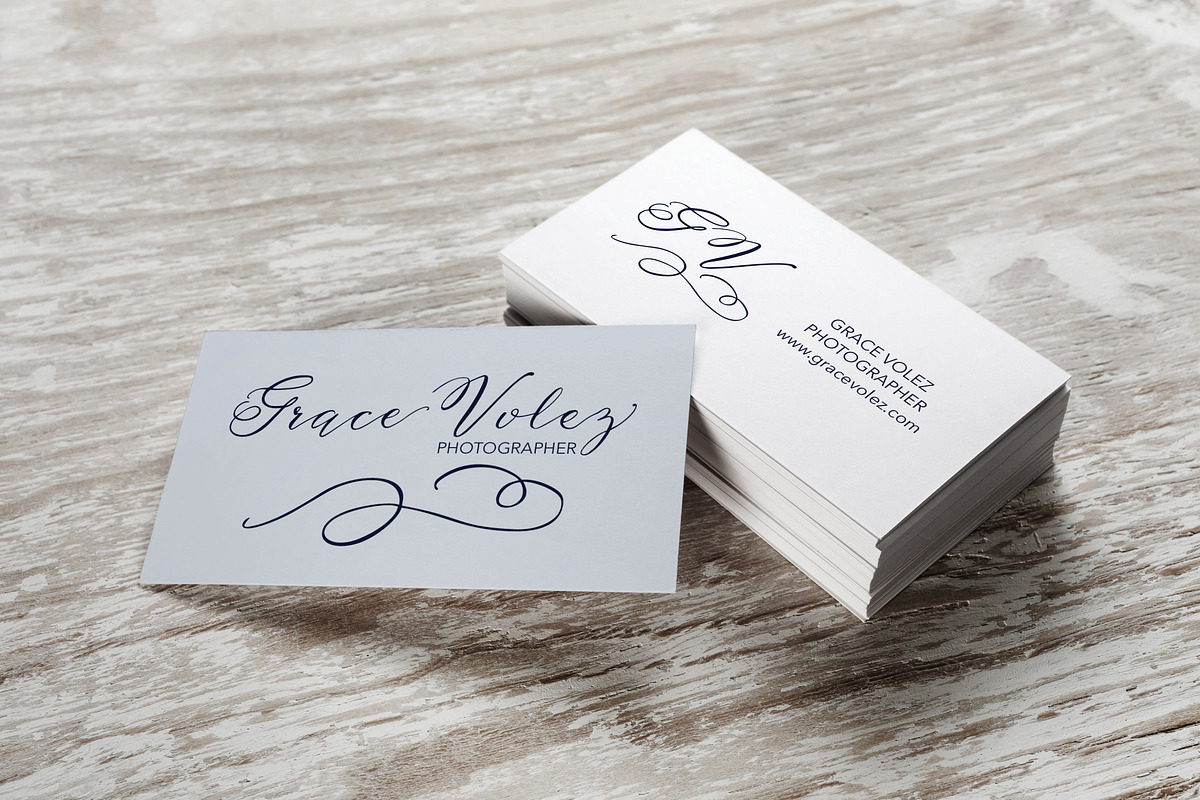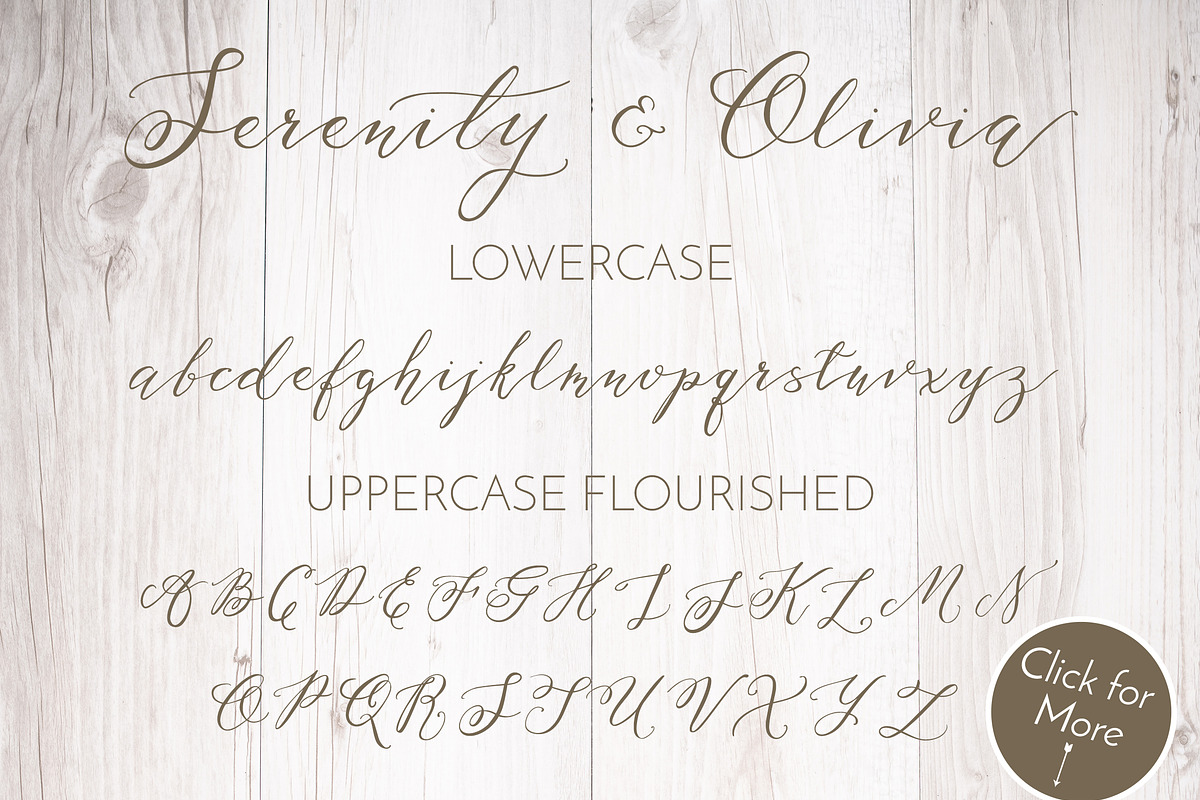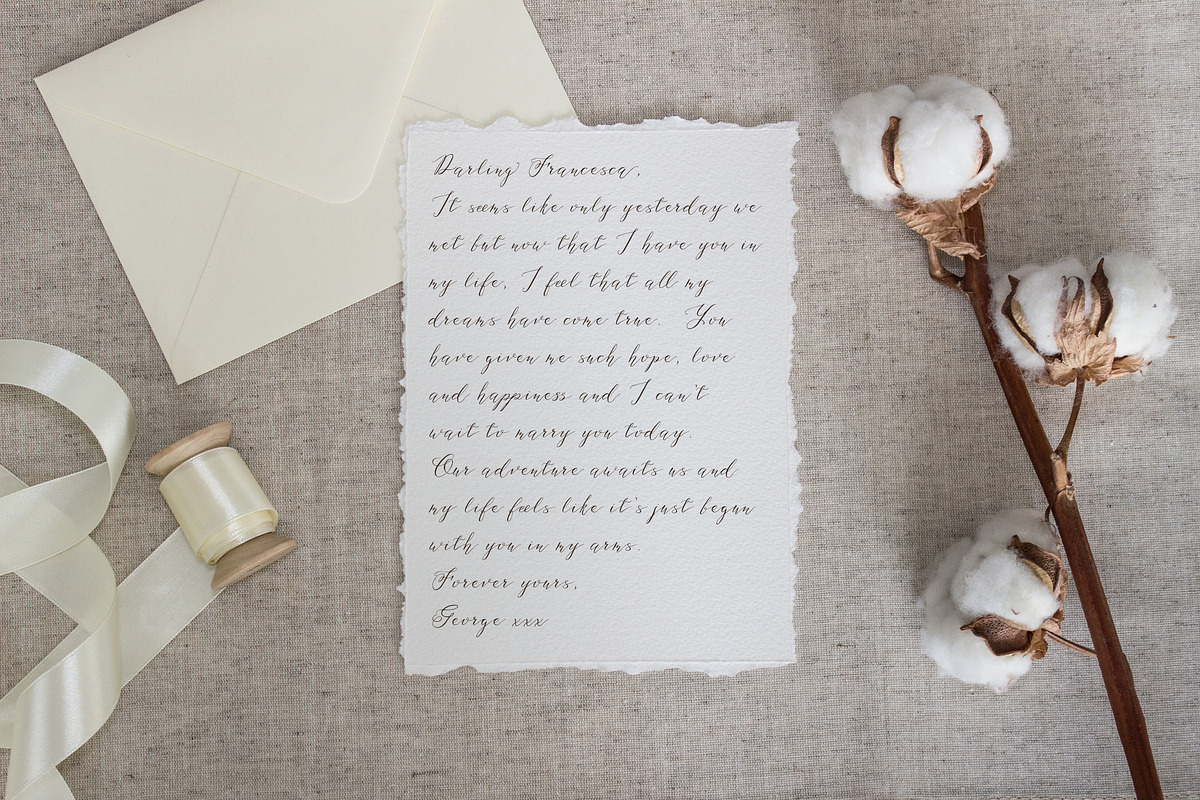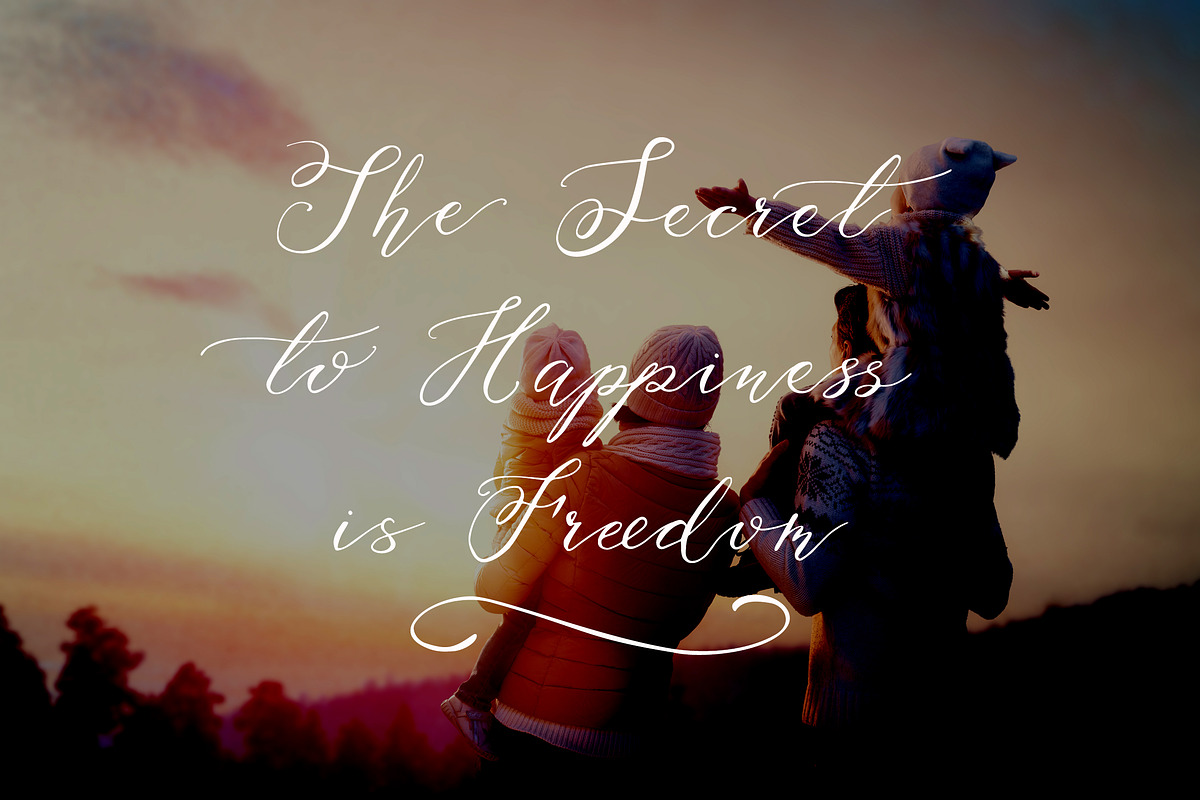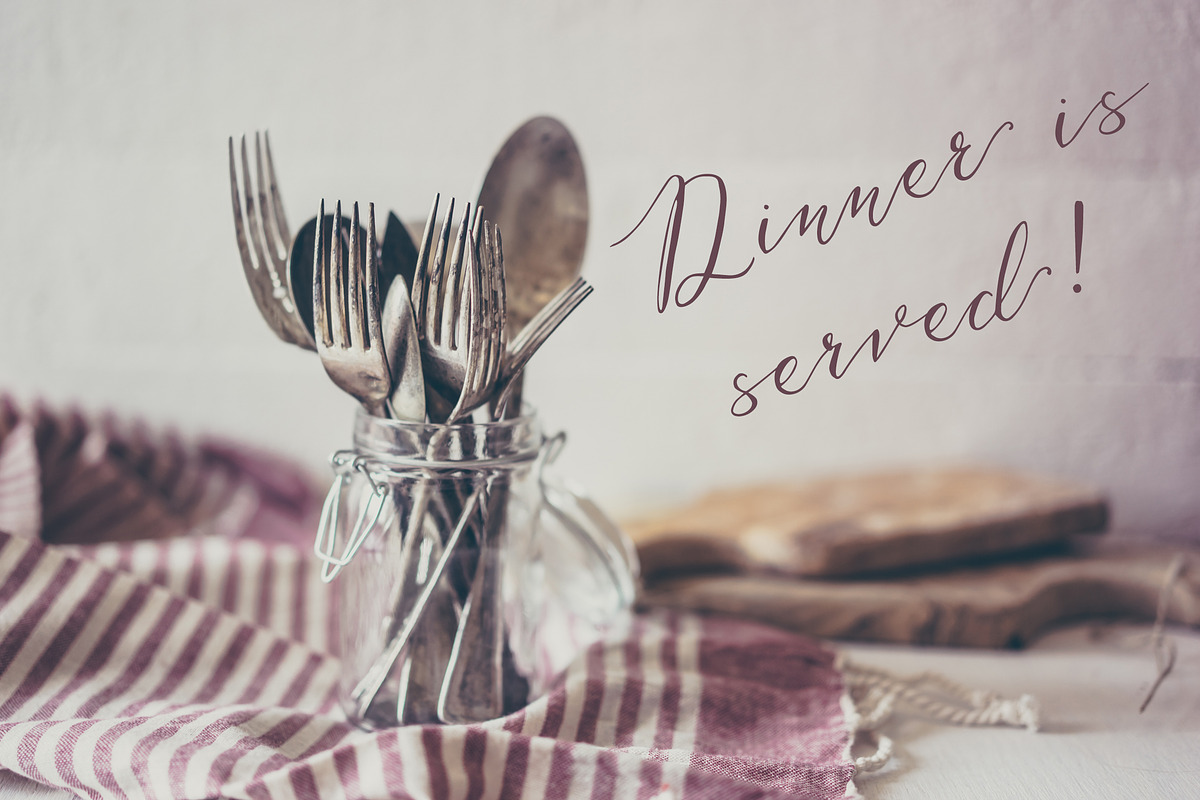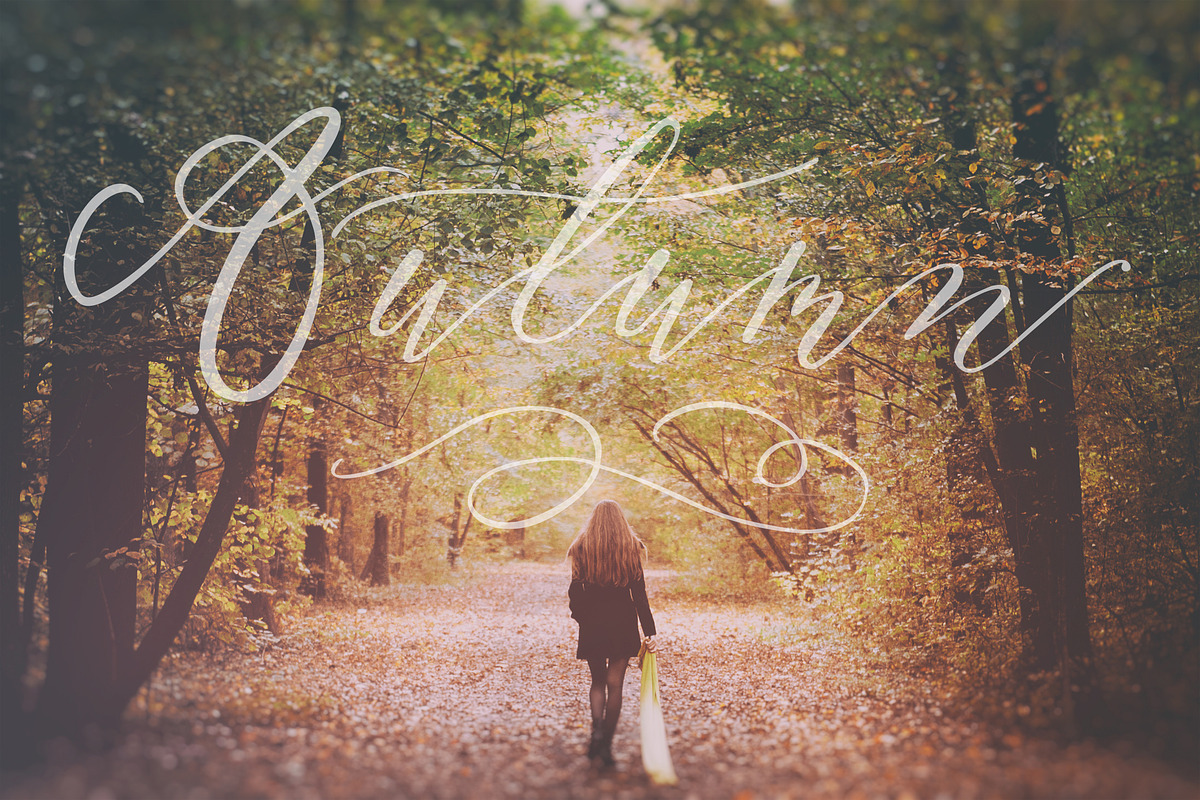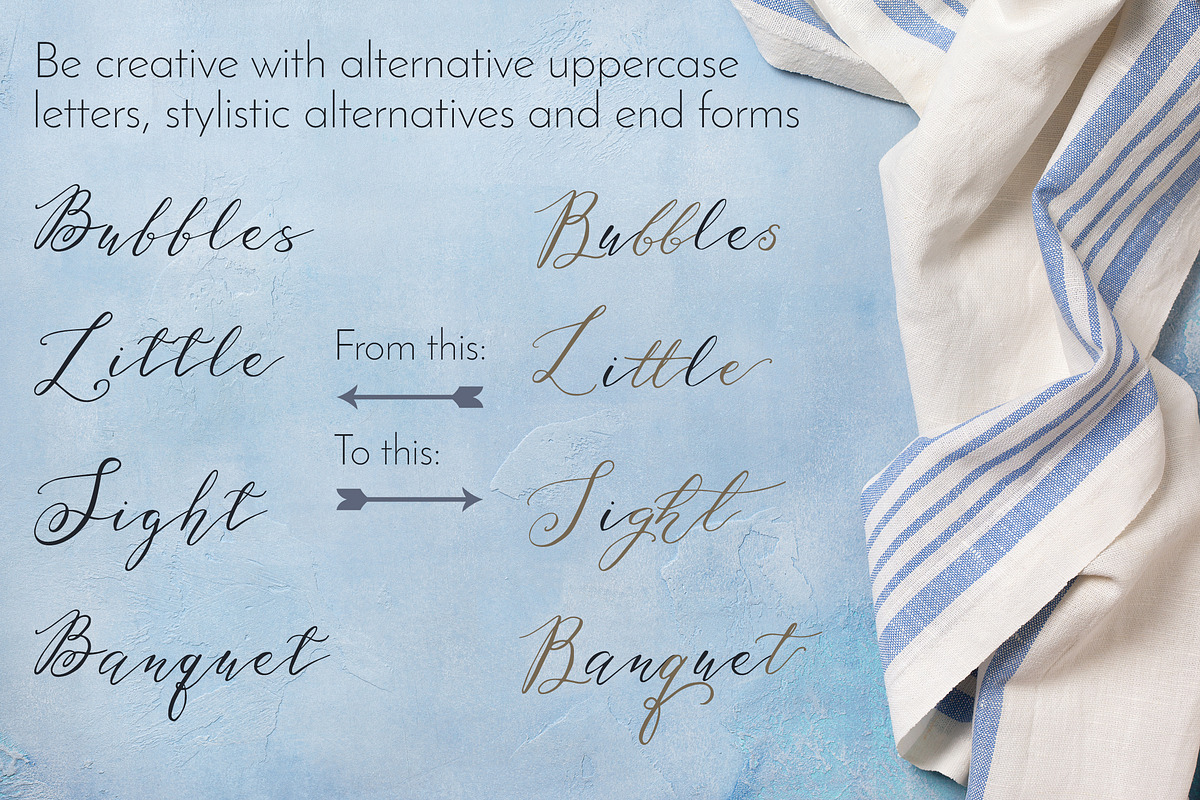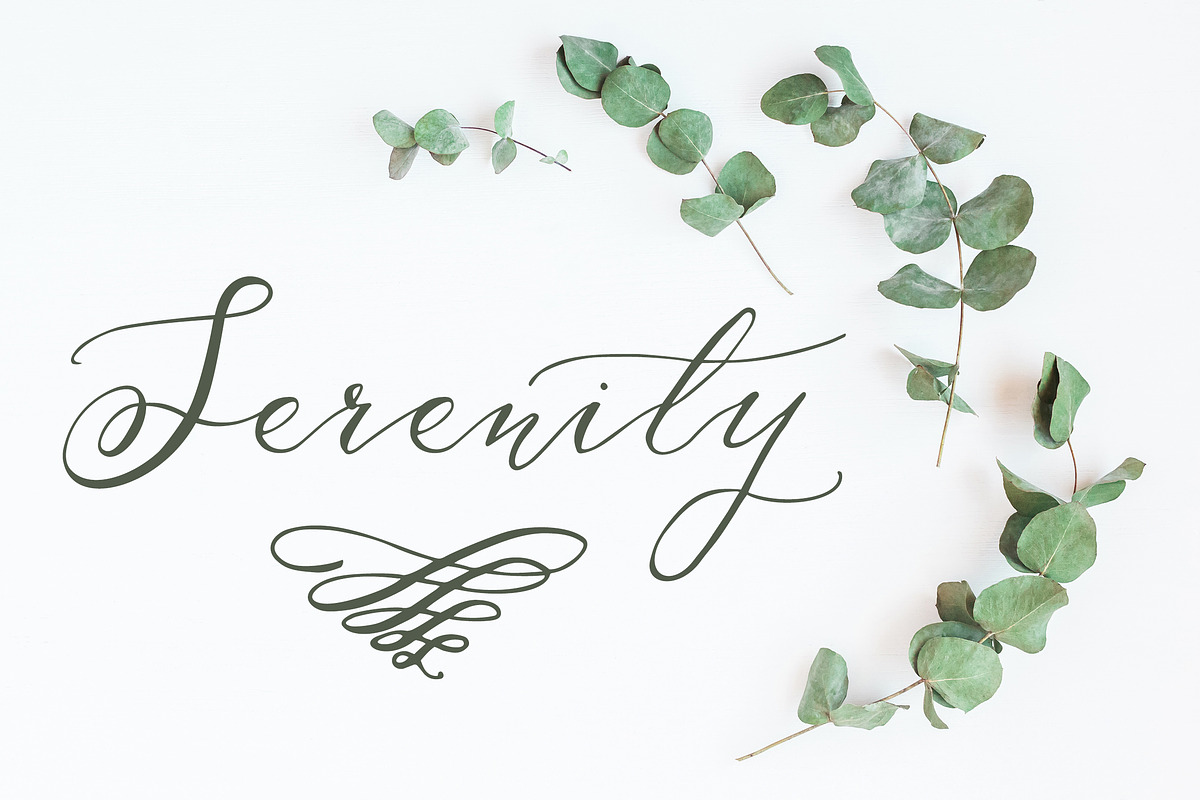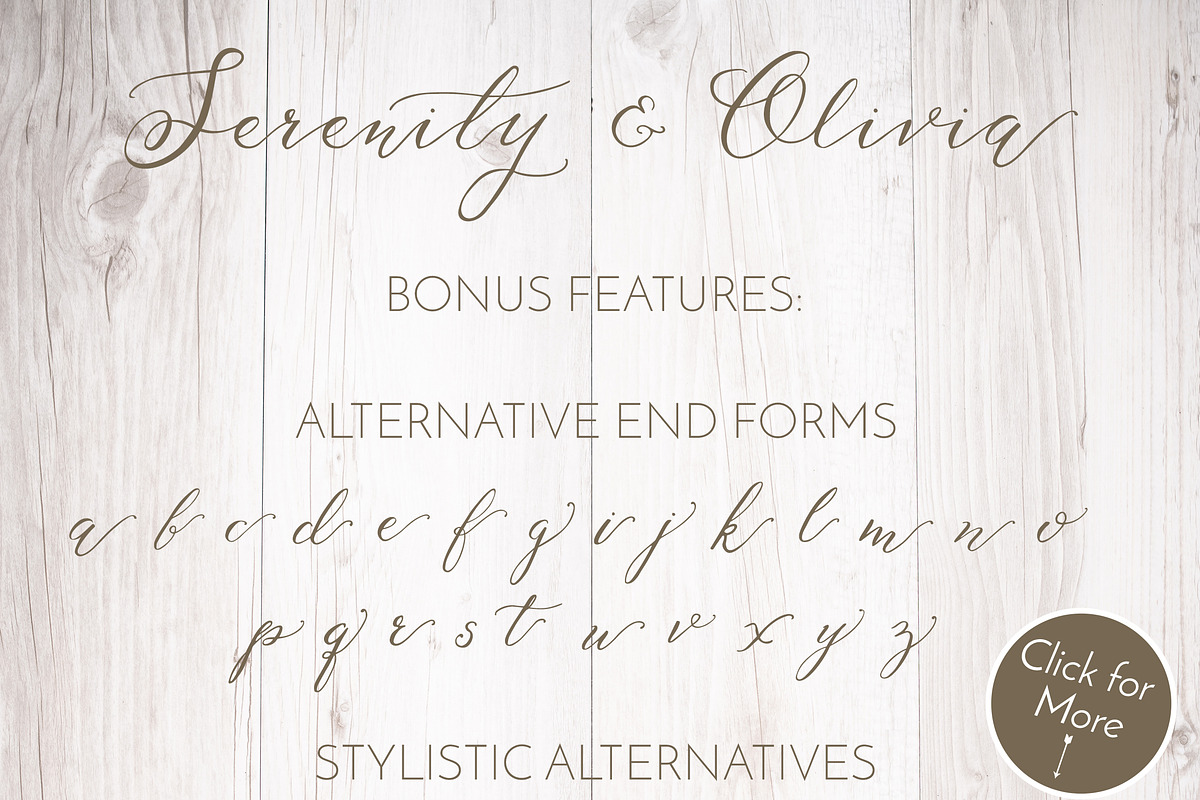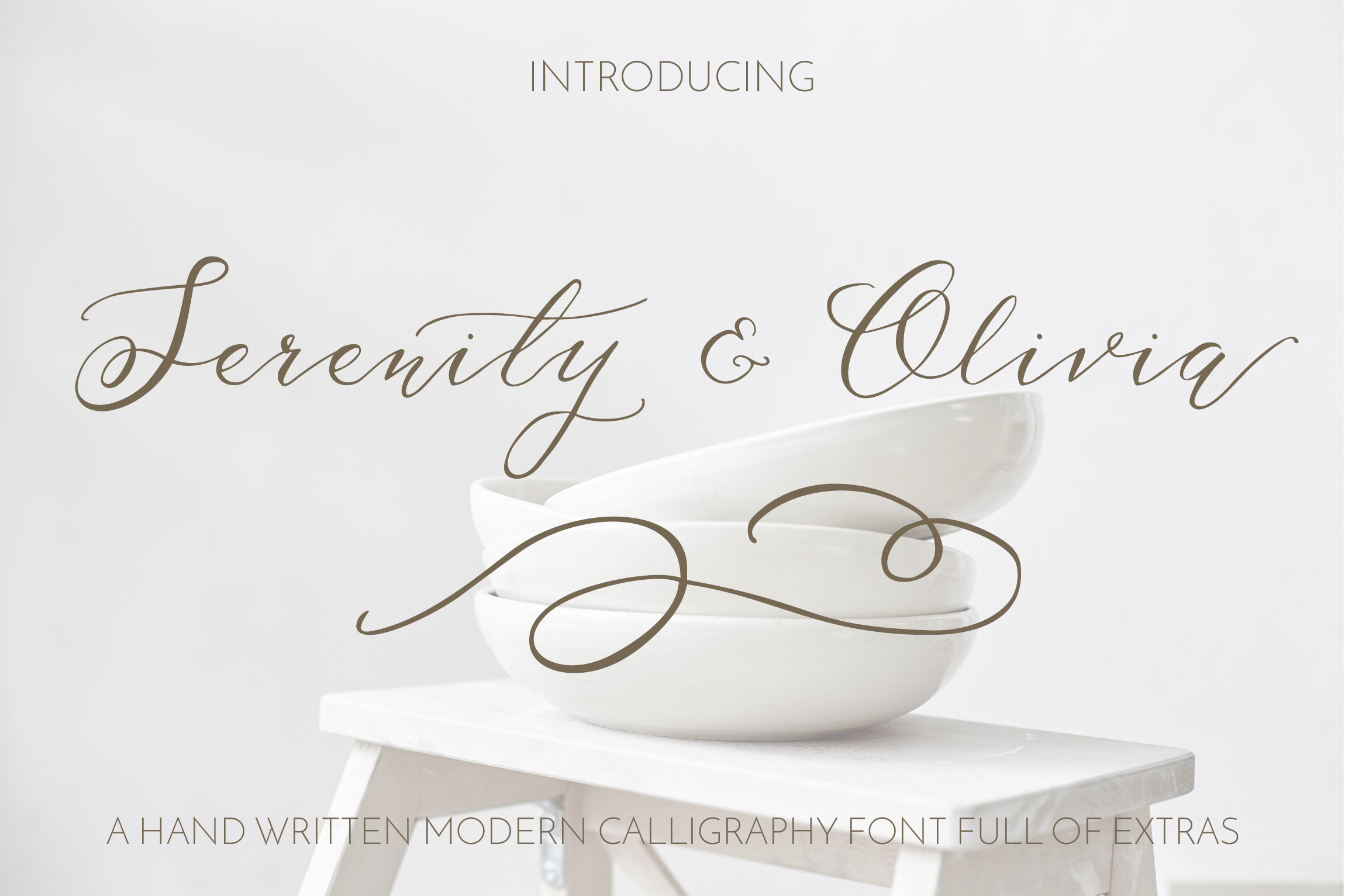
Serenity & Olivia Calligraphy Font
Introducing Serenity & Olivia! A beautiful flowing script font - carefully created using a pointed pen and ink. Each letter is unique and perfect for anyone looking for a modern calligraphy font. I have spent many hours designing and developing this font with oodles of extra features so that you can have the effect of a modern calligraphy script as if it was written by you. Perfect for product packaging, branding, logo design, blog posts, wedding invitation suites or just for fun!
Complete with stylistic, uppercase and end form alternatives you can be as creative as you wish with this font. It also includes a bonus selection of swash style symbols for you add to your artwork.
- Ligatures, stylistic alternatives, end forms and alternative uppercase are all available with software that has opentype capability or a glyphs panel. For example: Photoshop, Illustrator, Indesign etc. Simply highlight the letter you wish to change and a small box will appear below the letter with the alternative options.
To access the bonus symbols type uppercase A-E and then select Serenity & Olivia Symbol font to see them transform into lovely calligraphy swash symbols. Resize as required.